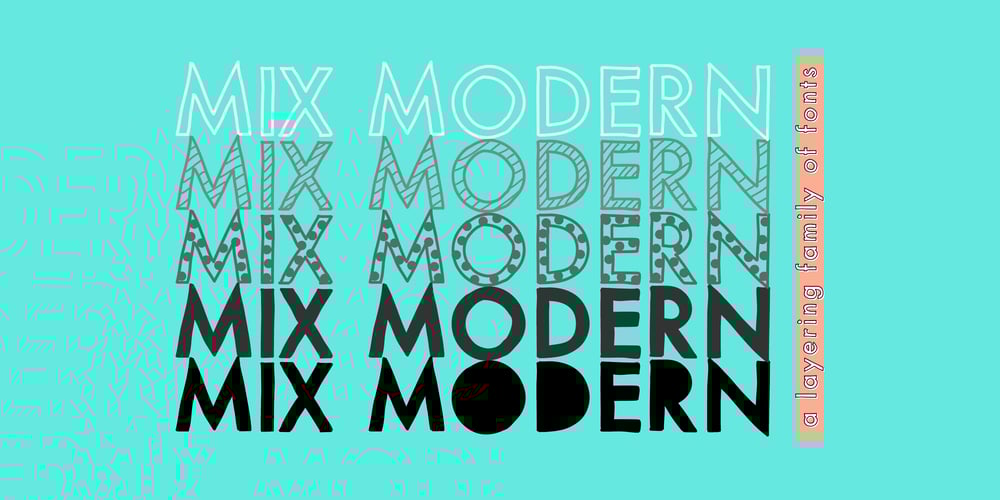
Mix Modern
Mix Modern font
Mix Modern Font Family was designed by Mikko Sumulong and published by Mix Fonts. Mix Modern contains 4 styles and family package options. MIX MODERN is a layering family of fonts—a bundle of five different styles. These fonts can be used alone or in combination. Switch up among five of my favorite fonts to create fun and whimsical variations. Get creative! This font family is perfect for handmade and DIY themed projects.